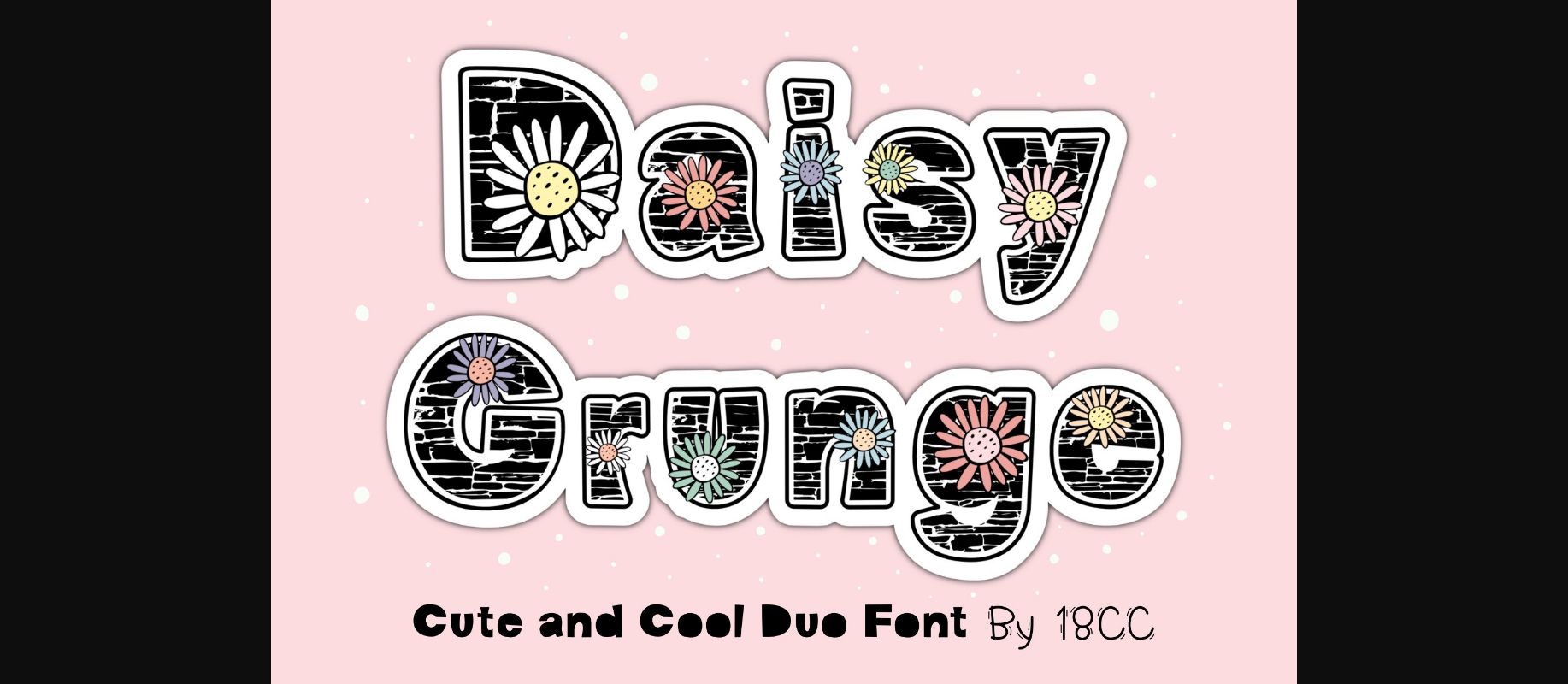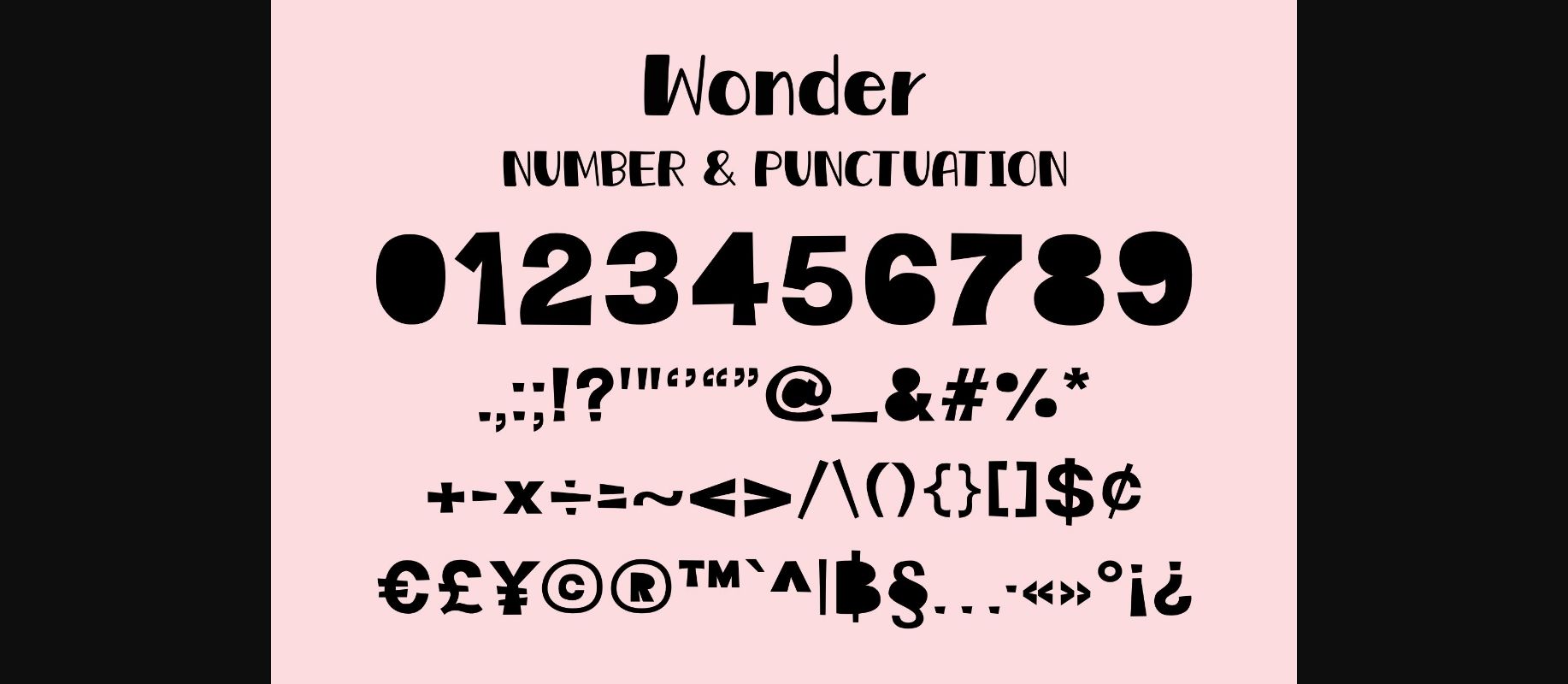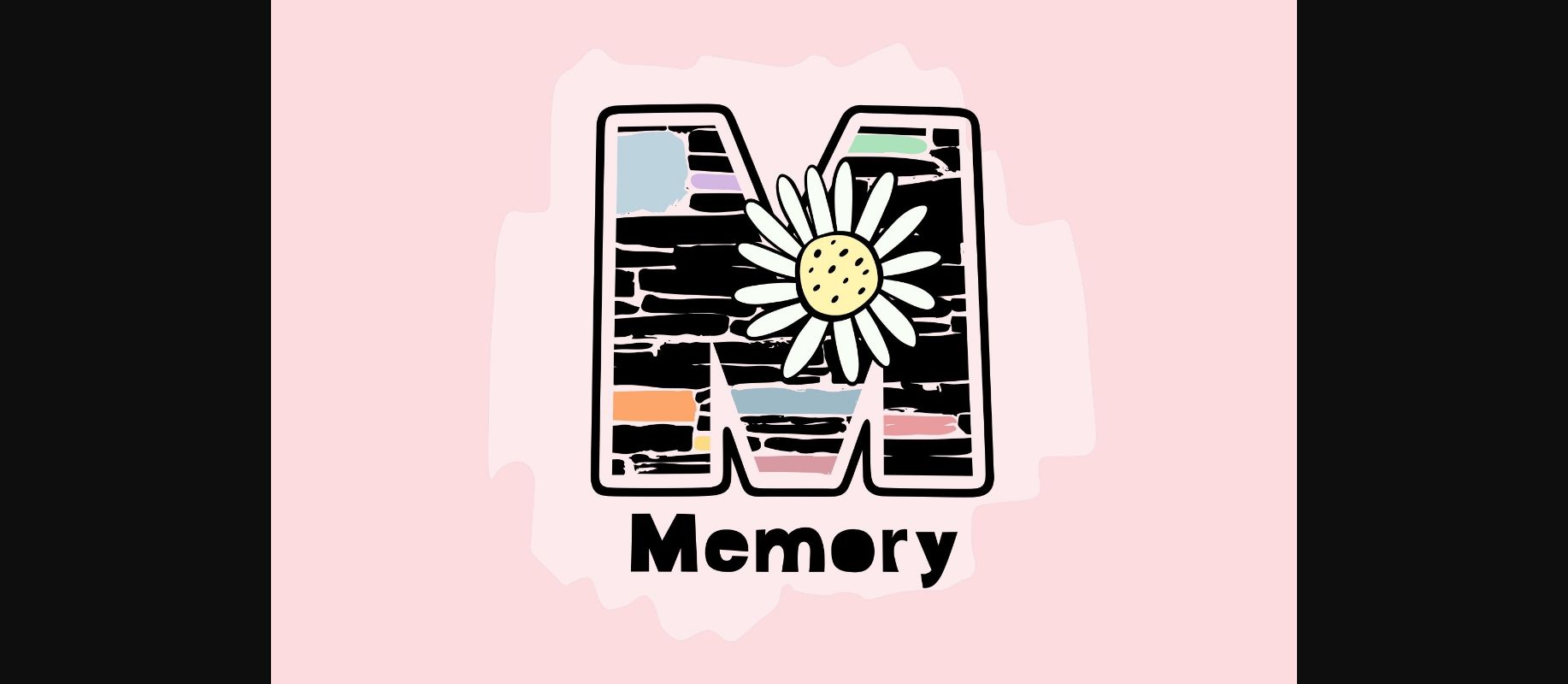
About Daisy Grunge Font
Daisy Grunge is Cute and Cool duo font ( Decorative and Display ). This font is the perfect fit for all of your logos, branding, social media, crafty DIY projects, and much more!